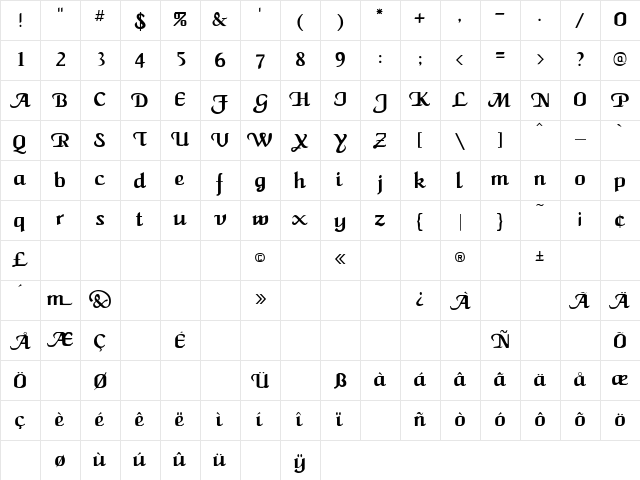
Caligula Regular Free Font
Caligula Regular
Caligula Family
Caligula Regular
Design Context for Caligula
Caligula is a composed and adaptable typeface that performs quietly and consistently across a wide range of design contexts.
Pro Tip: Use Caligula in both headline and body roles to test its range before committing to a single application.